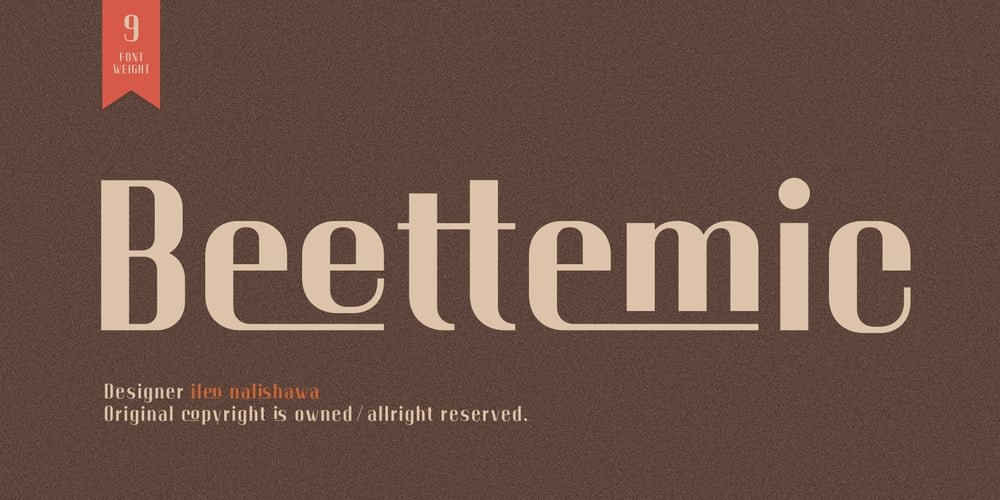
Beettemic Font Family was designed by Darhilen and published by Owl king project. Beettemic contains 9 styles and family package options. Introducing our new family fontBeetemic is a font that has a modern style but is very adaptable to retro styles, this font carries 9 weight and is accompanied by some beautiful ligatures, Beetemic has very strong and contrast, and looks comfortable to read in body text, short sentences also works well too for logos and headlines. Enjoy